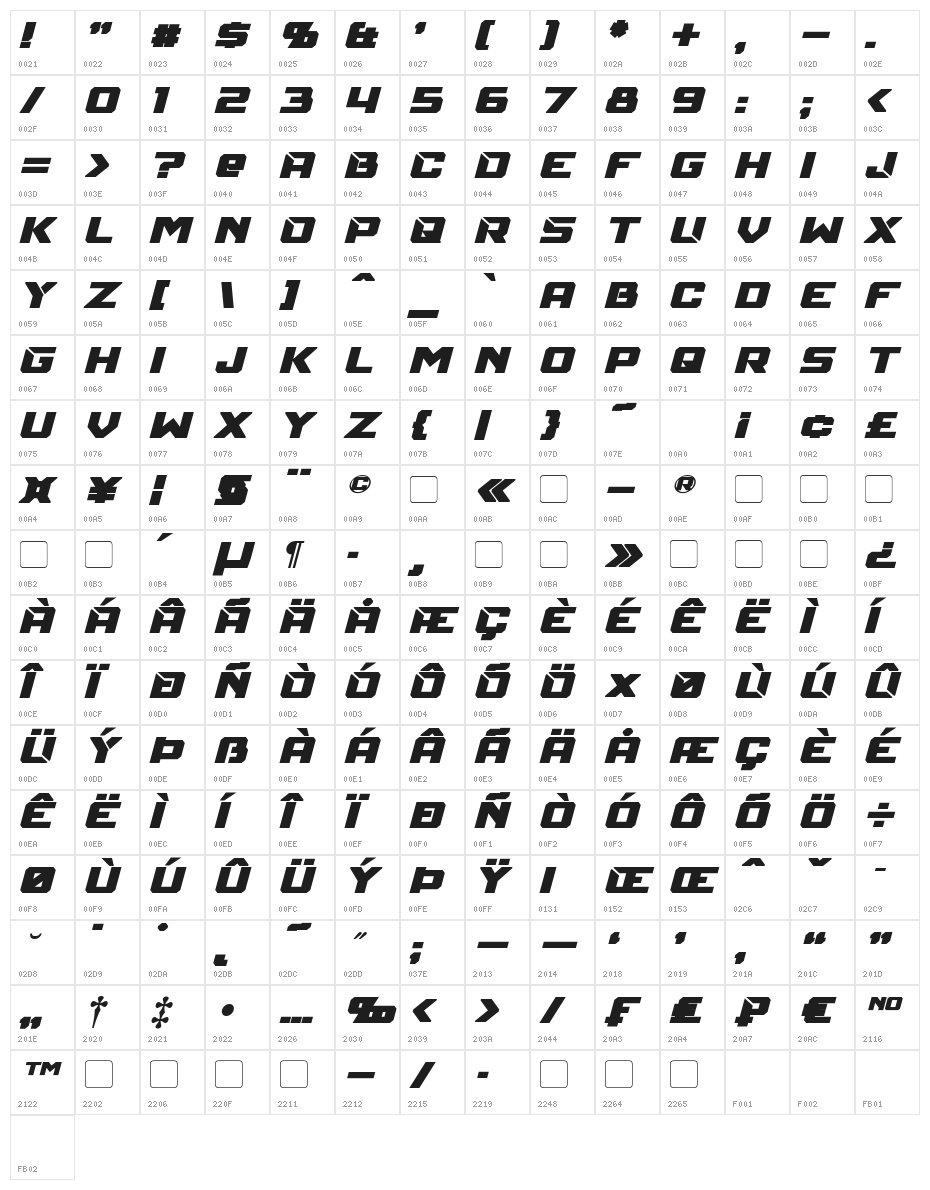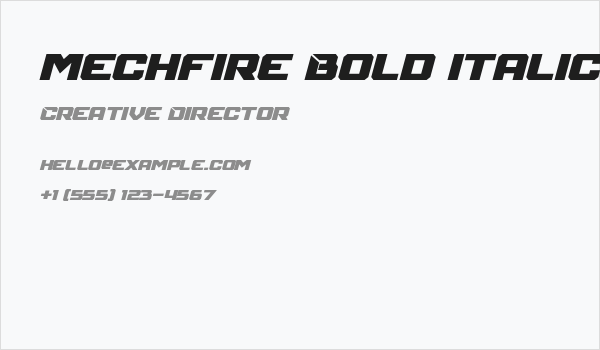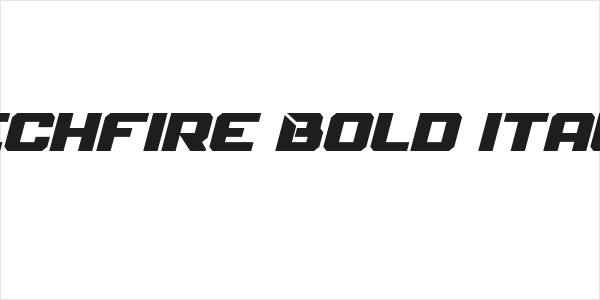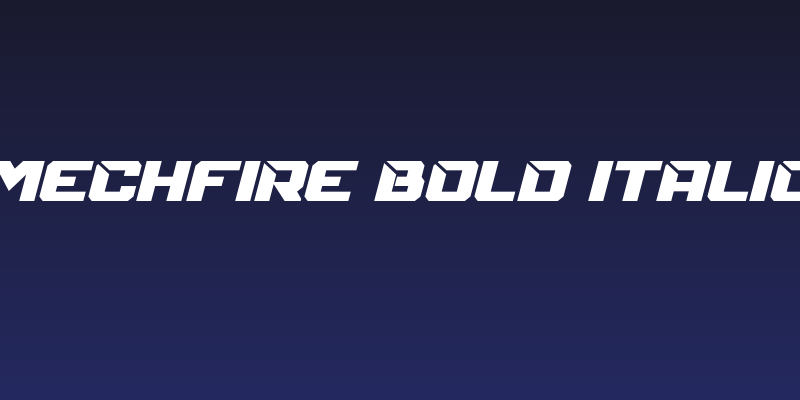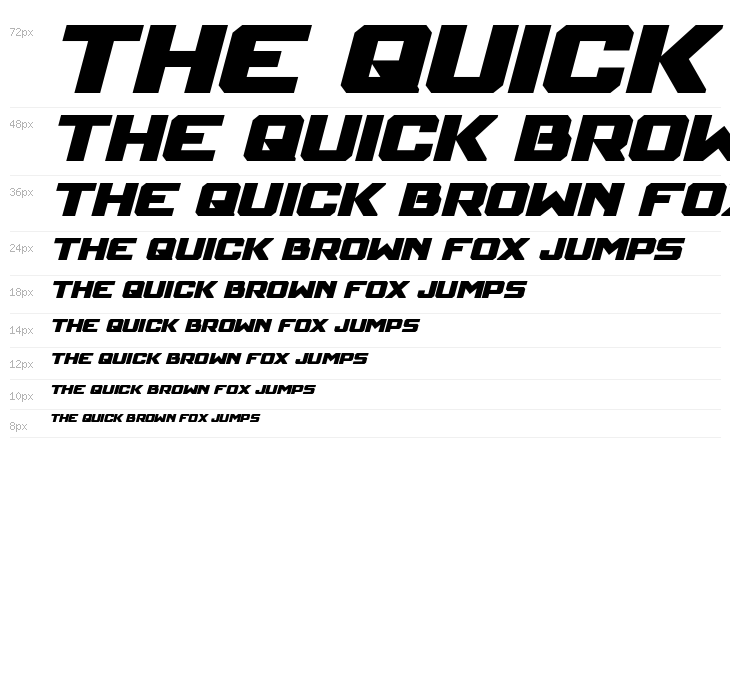
Mechfire Bold Italic Font
Mechfire Bold Italic Description
This font features a bold and italicized style with a futuristic and mechanical aesthetic. The characters are angular and dynamic, with sharp edges and a sense of movement, making them ideal for projects that require a modern and edgy look. The uppercase and lowercase letters maintain a consistent style, with a slight slant that enhances the italic effect. The numbers and special characters are designed to match the overall theme, ensuring a cohesive appearance across all text elements. The font's bold weight and italic style make it stand out, suitable for attention-grabbing headlines or logos.